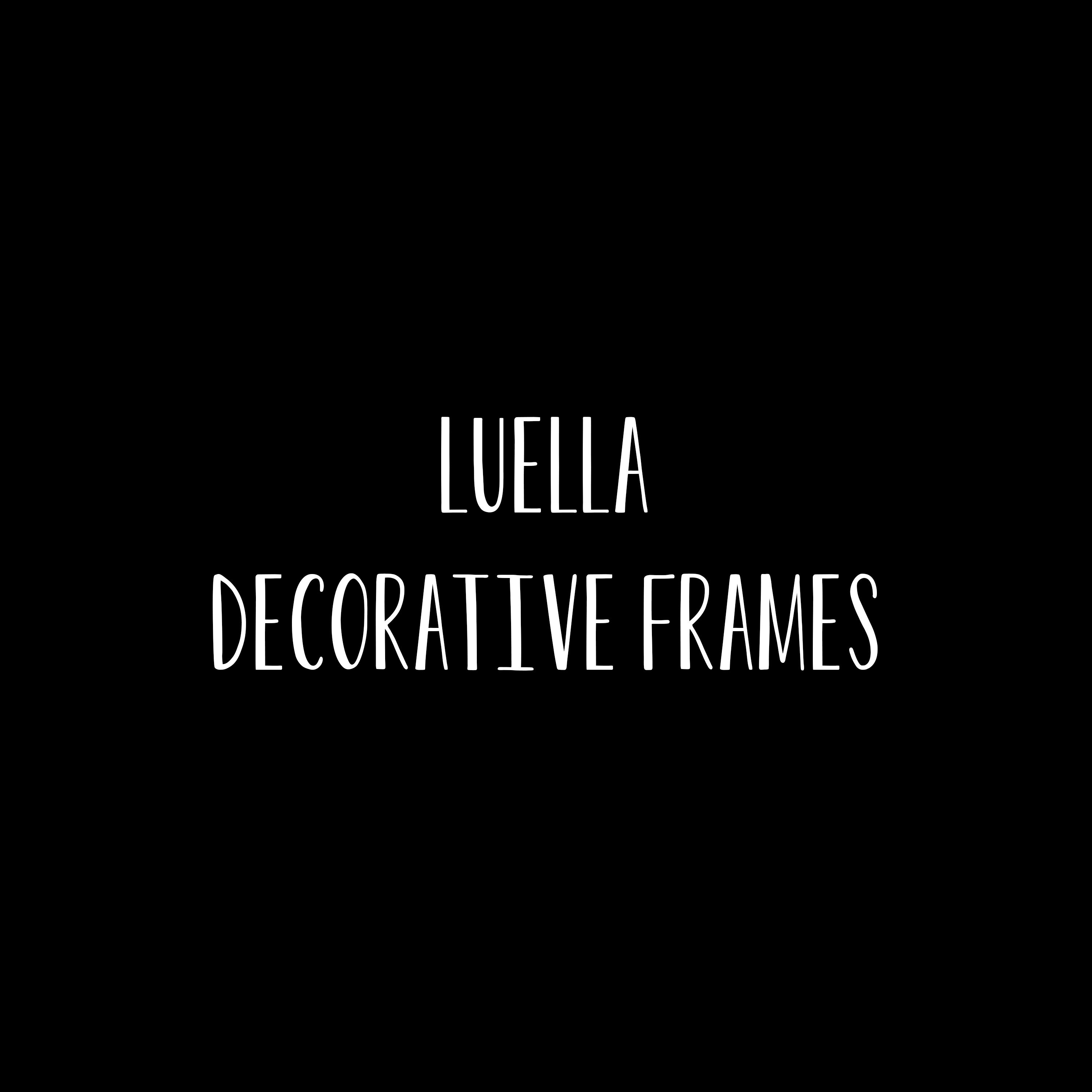
LUELLA DECORATIVE FRAMES ART FONT & VECTOR ART are a fun set of hand-painted artwork frames. Files include one Decortive Frames Art font file (OTF/TTF) and one Vector Art (AI) files.
Luella Decorative Frames Font & Vector Art